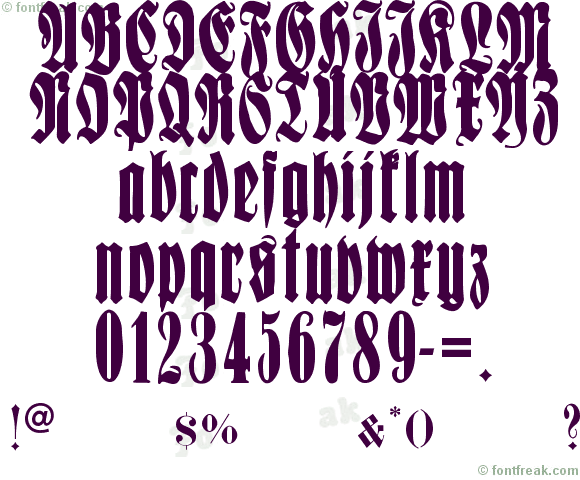
About Fraktur Condensed Headline
Fraktur Condensed Headline, designed by Manfred Klein, is a striking display font that falls within the Fraktur category of serif typefaces. This unique typeface is characterized by its condensed letterforms, which are ideal for impactful headlines and decorative text. The strokes exhibit a balanced weight, creating a harmonious contrast that enhances readability while maintaining an artistic flair. The spacing between letters is tight yet intentional, allowing for a cohesive visual impact that draws the eye. Decorative elements such as sharp angles and ornate curves give the font a classic and sophisticated appearance, making it perfect for various applications.
The Fraktur Condensed Headline font shines in use cases that require attention-grabbing typography. It can elevate wedding invitations, lending a touch of elegance and tradition that complements formal events. Additionally, its bold presence makes it a great choice for movie posters, where it can convey drama and excitement. Restaurant menus can benefit from its distinctive style, providing a memorable branding element that enhances the dining experience. Furthermore, the font can be effectively utilized in branding and logo design, appealing to businesses seeking a unique identity.
What sets the Fraktur Condensed Headline font apart is its blend of historical significance and modern usability. It captures the essence of traditional German typography while offering a fresh, contemporary twist that can elevate any design project. For those interested, the Fraktur Condensed Headline font free download is an opportunity to explore this captivating typeface.